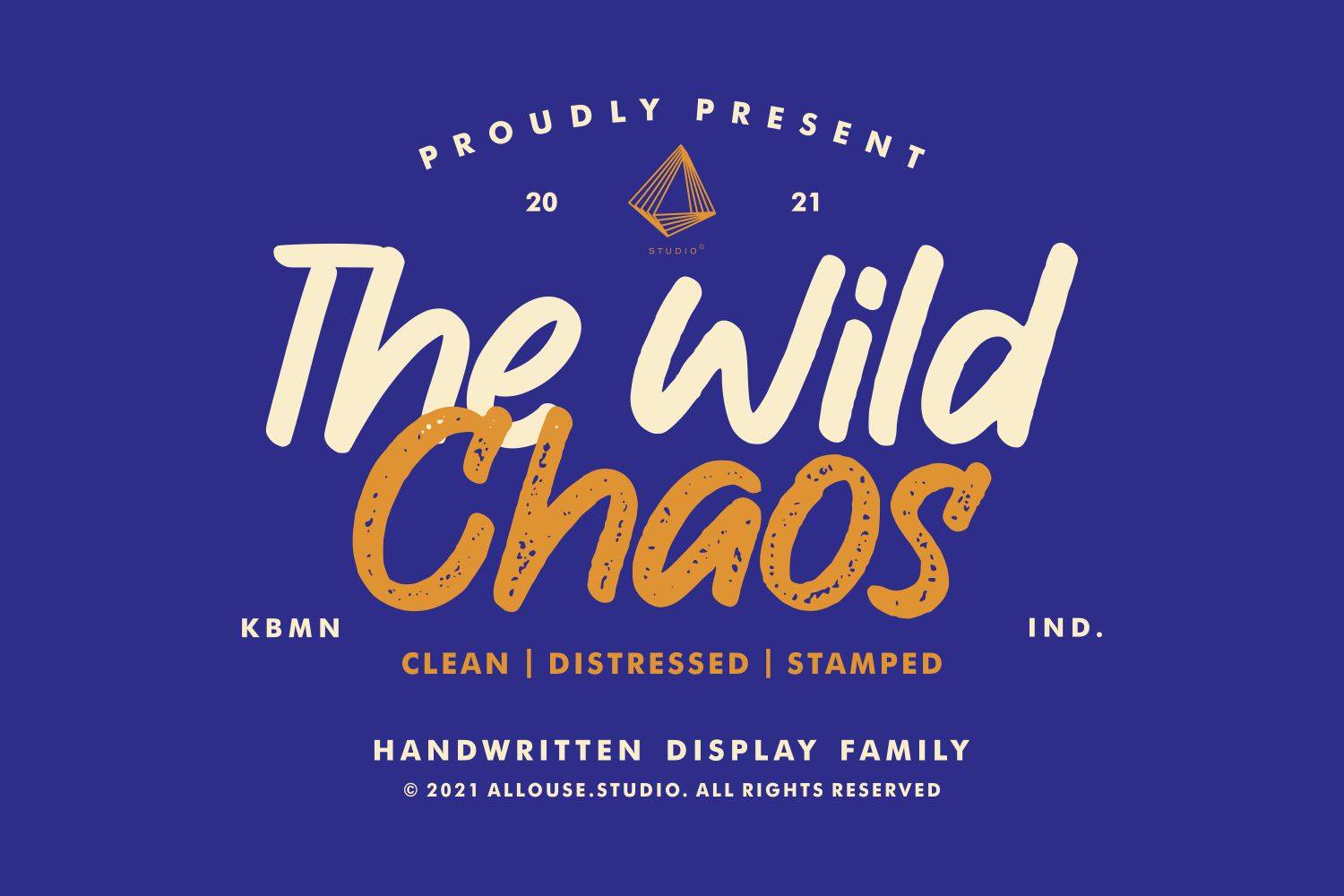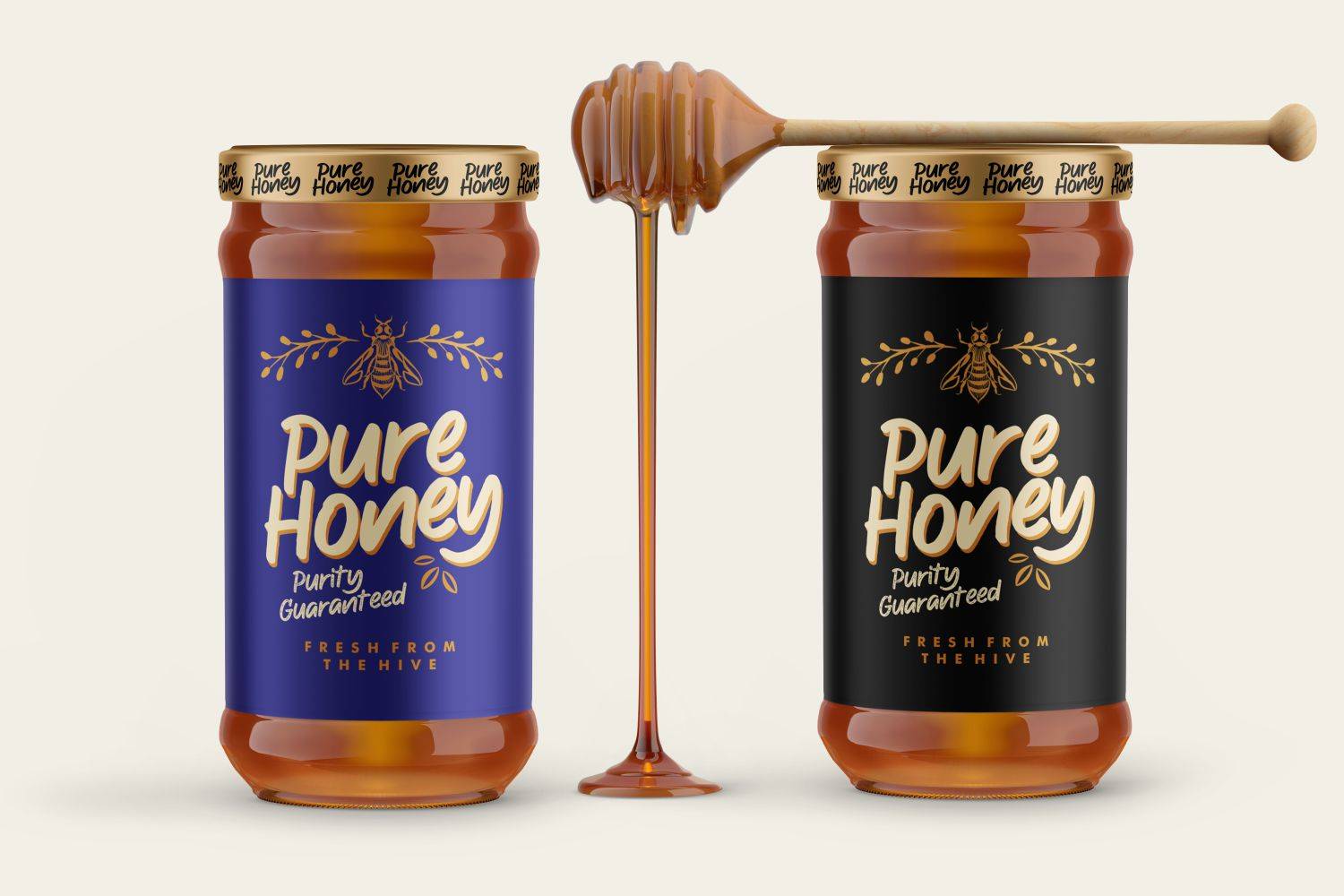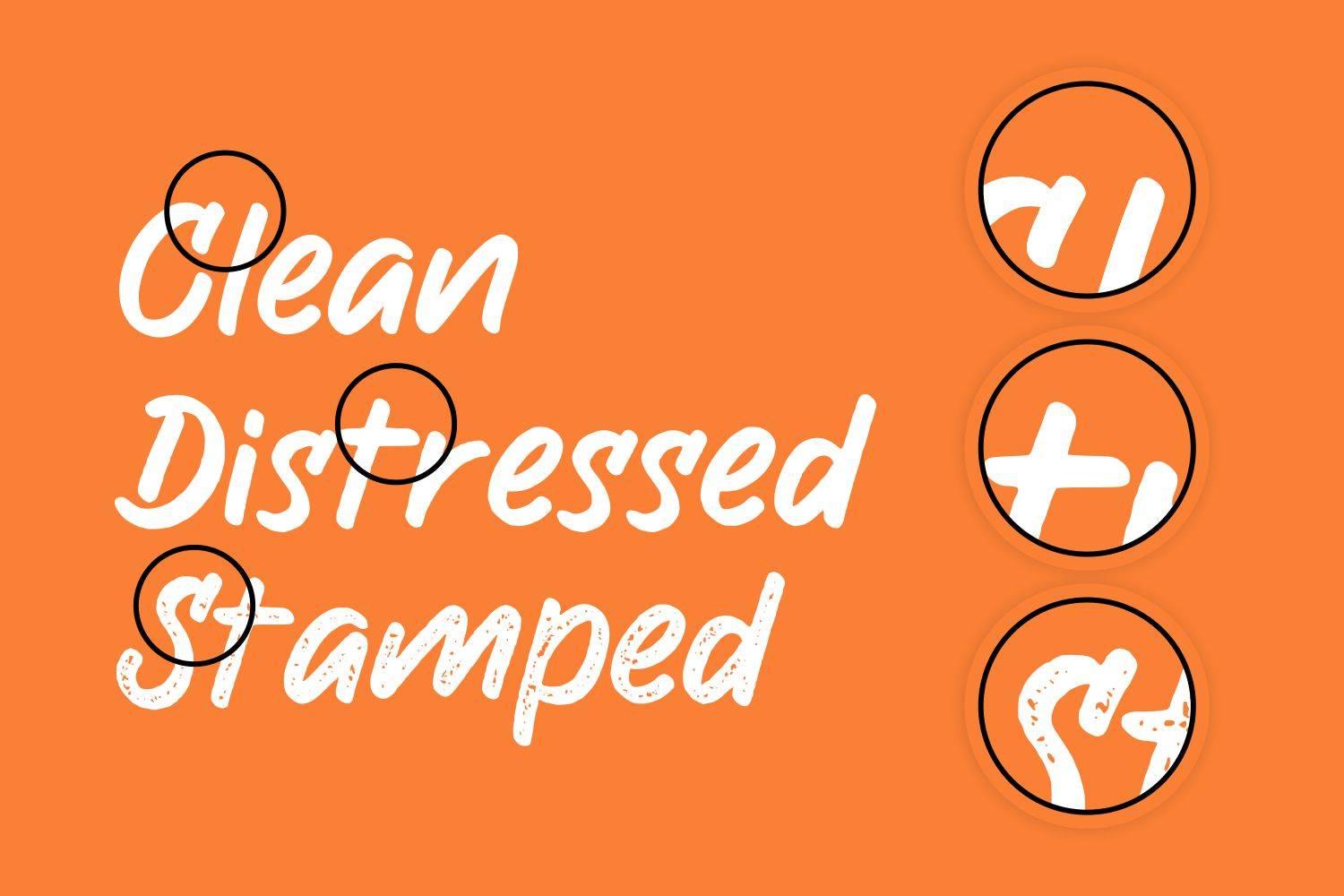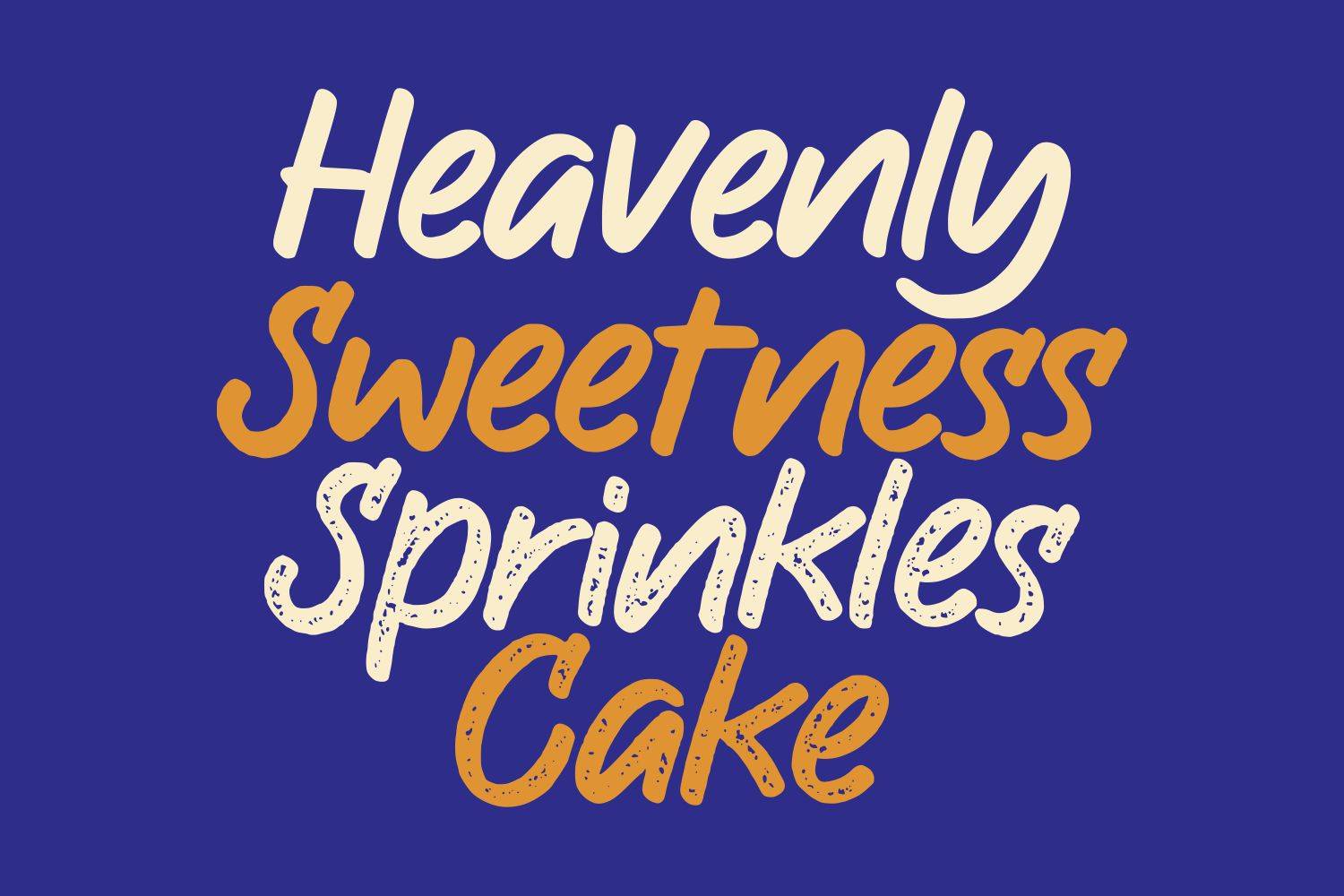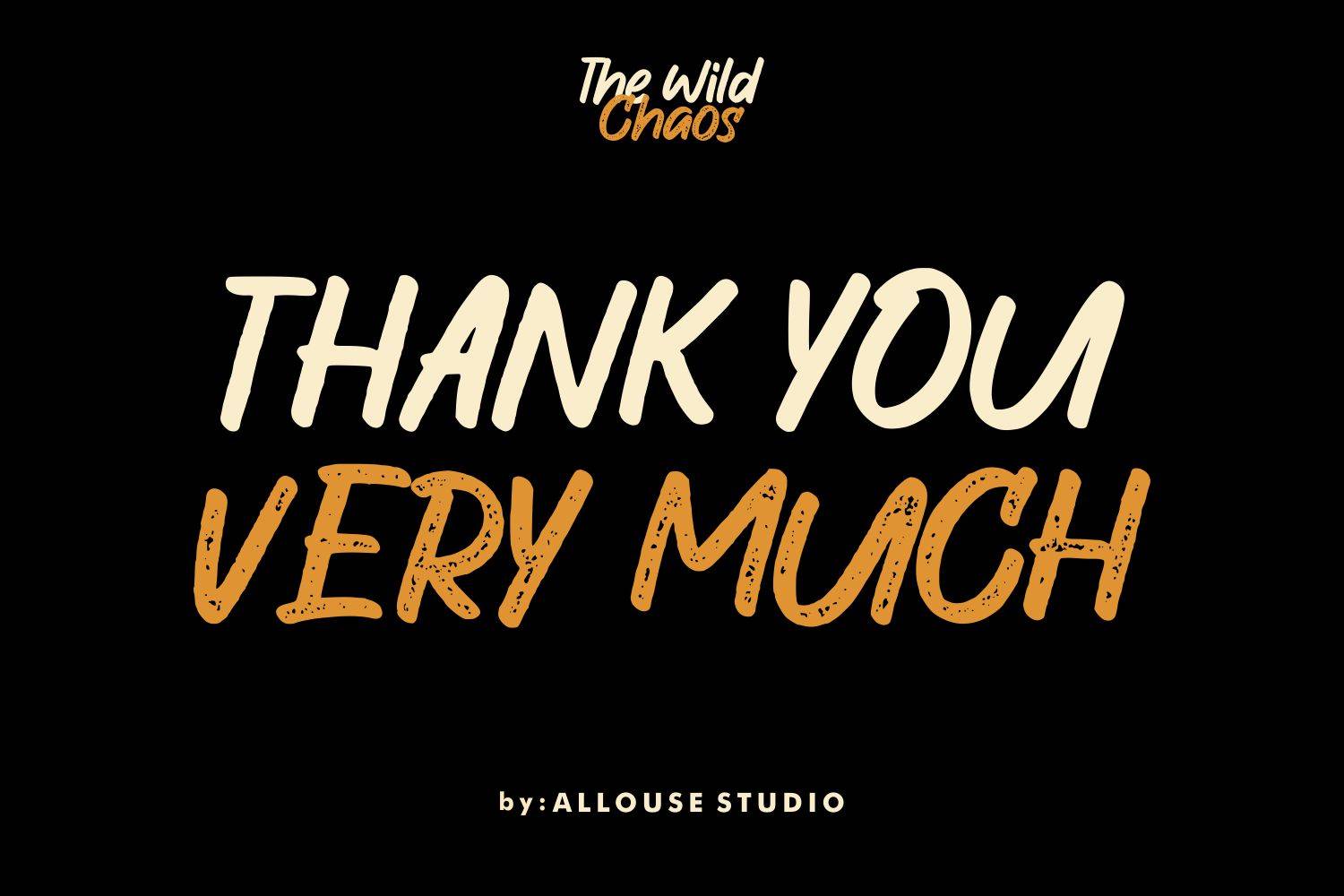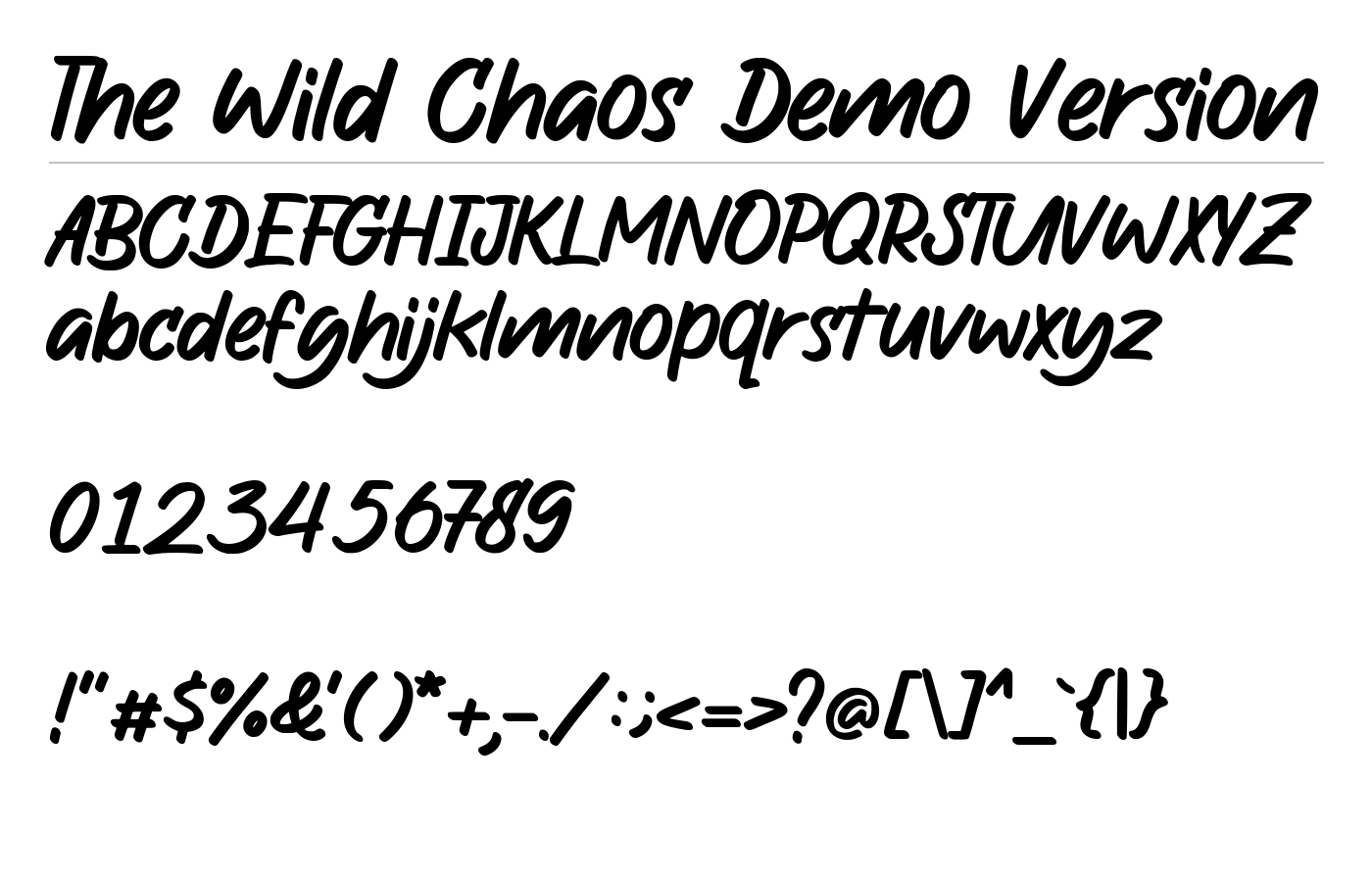
The Wild Chaos Font is a lively and casual script font with a hand-drawn feel, featuring smooth, flowing strokes and moderate contrast. Its energetic style and informal vibe make it perfect for creative projects, playful branding, and dynamic headlines where a personal touch and expressive character are desired. This font works well for packaging, posters, and any design aiming to convey spontaneity and fun.
The Wild Chaos Font
About The Wild Chaos Font